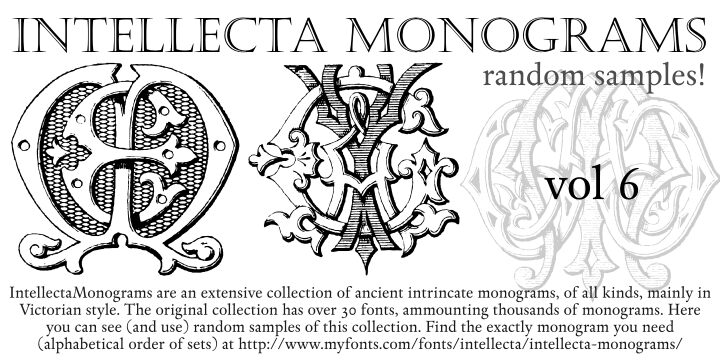
Intellecta Monograms Random Samples Six by Paulo W. is a free monogram dingbat font of ornate, intertwined initials. Every design has its own balance of black fill and fine linework.
Heraldry, vintage engraving, and formal insignia are the clearest references, making the collection useful for invitation crests, heritage branding, and theatrical posters. On book covers or personalized merchandise, the looping strokes, sharp spurs, and engraved detail turn individual initials into compact emblems with the layered density of intricate miniature engravings.
Intellecta Monograms Random Samples Six by Paulo W. is a free monogram dingbat font containing interlaced initials.
Intellecta Monograms Random Samples Six is by Intellecta Design. Intellecta Monograms Random Six is a random, limited-set version of Intellecta Monograms, a collection of fonts containing thousands of monograms, mainly in the Victorian style.